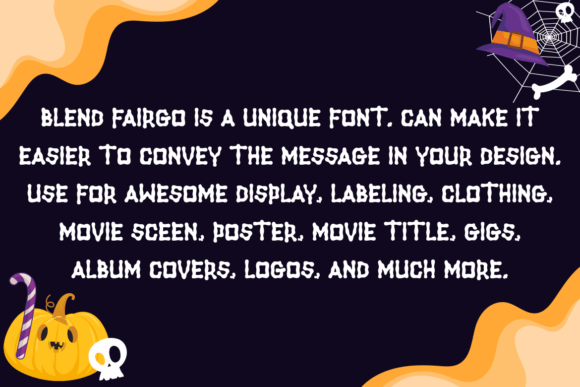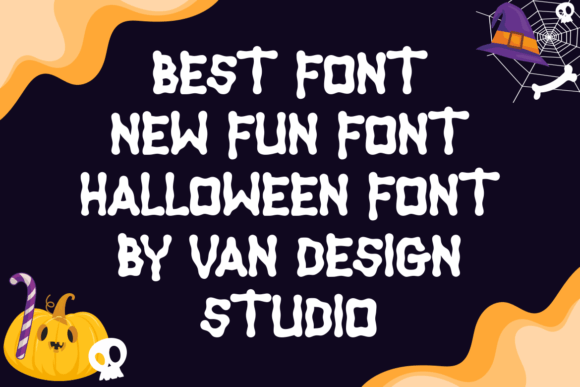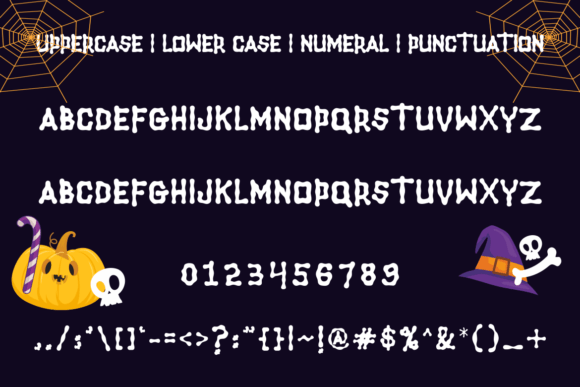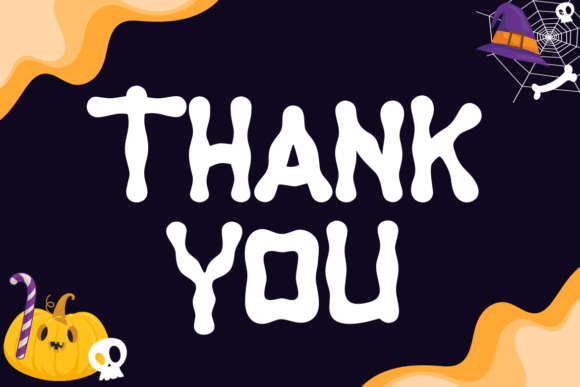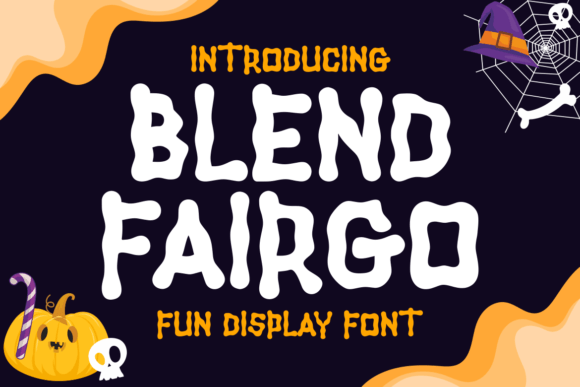
Unleash Your Creativity with Blend Fairgo Font: A Unique Display Font
Are you tired of using the same old fonts for your creative projects? Look no further than the Blend Fairgo Font, an incredibly unique display font that is sure to take your designs to the next level. Masterfully designed to become a true favorite, this font has the potential to bring each of your creative ideas to the highest level. In this article, we’ll dive into the features and benefits of the Blend Fairgo Font, and explore how it can elevate your designs.
What is Blend Fairgo Font?
Blend Fairgo Font is a display font that stands out from the crowd with its distinctive and stylish design. Its unique blend of modern and classic elements makes it perfect for a wide range of creative projects, from branding and advertising to packaging and digital media. Whether you’re a designer, crafter, or DIY enthusiast, this font is sure to inspire your next project.
Key Features of Blend Fairgo Font
- Unique Design: Blend Fairgo Font boasts a one-of-a-kind design that is sure to grab attention. Its distinctive style is perfect for making a statement and setting your project apart from the rest.
- Highly Versatile: This font is incredibly versatile and can be used for a wide range of projects, from digital media to print materials.
- Easily Readable: Despite its unique design, Blend Fairgo Font is highly readable, making it perfect for use in body text as well as headlines.
- Extensive Language Support: This font supports a wide range of languages, making it perfect for international projects.
Benefits of Using Blend Fairgo Font
So why choose Blend Fairgo Font for your next project? Here are just a few benefits of using this incredible display font:
- Adds Visual Interest: The unique design of Blend Fairgo Font adds visual interest to any project, making it perfect for grabbing attention and holding it.
- Enhances Brand Identity: With its distinctive style, Blend Fairgo Font can help to enhance your brand identity and set you apart from the competition.
- Increases Creativity: The versatility of Blend Fairgo Font makes it perfect for sparking creativity and bringing new ideas to life.
- Professional Results: With Blend Fairgo Font, you can achieve professional-looking results, even if you’re not a seasoned designer.